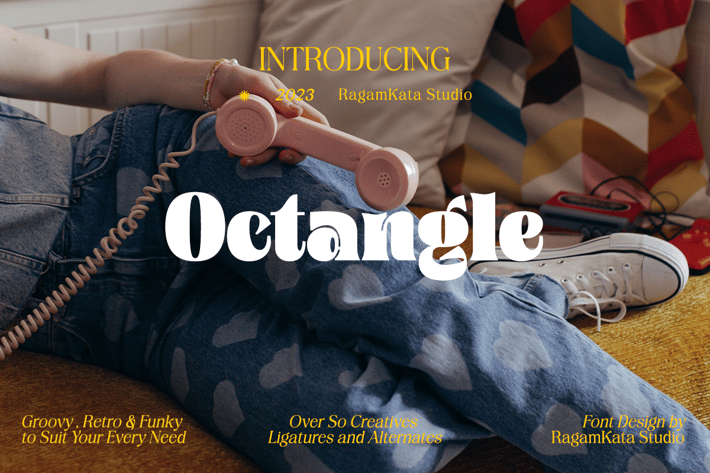
Octangle - Retro Y2K Typeface
Octangle, a well-shaped font that gives a retro power as a display typeface. It’s
quirkiness makes it looks funky to enhance your design. The groovy touch to the
Octangle font, makes it a fun typeface to explore with! Octangle is very suitable for
a variety design, such as posters, Invitations, greeting cards, logo, and many more.
Embrace your design with Octangle to make your work pinnacle!
Octangle font will also include some features :
Ligatures & Alternates
Letters, numbers, symbols, and punctuation
* Multilingual Support